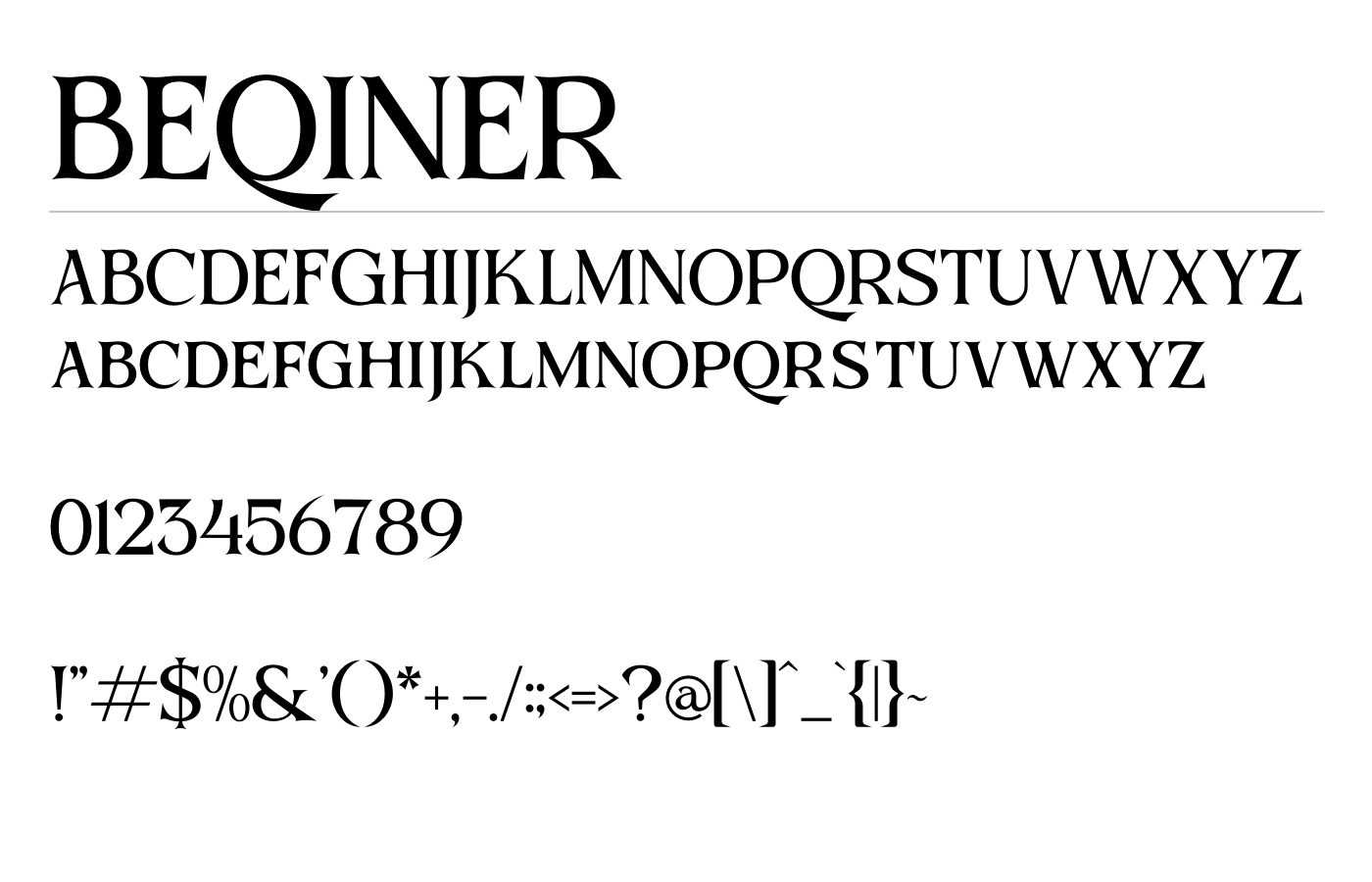
BEQINER is an elegant serif font with a classic yet contemporary feel, featuring sharp, high-contrast strokes and distinctive bracketed serifs that add a refined touch. Its tall, narrow letterforms and unique flourishes, such as the extended tail on the Q, give it a sophisticated and slightly dramatic personality, ideal for luxury branding, editorial headlines, and elegant logo designs. This font’s stylish presence works beautifully where a sense of tradition meets modern refinement is desired.
BEQINER Font
About BEQINER Font
| Font family | BEQINER Font |
| Designer | Muhammad Nugraha |